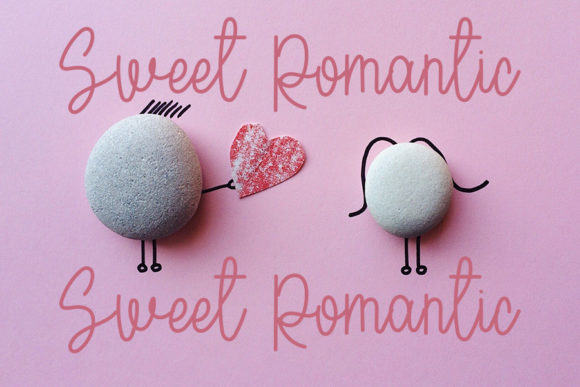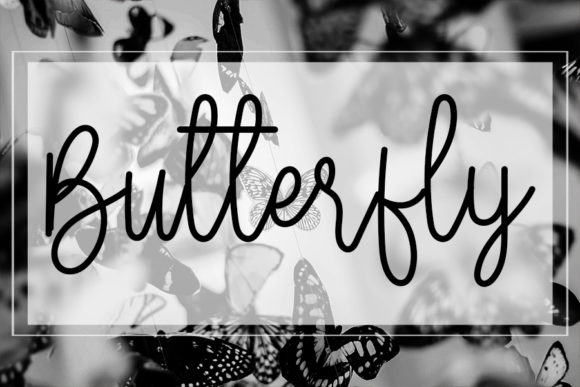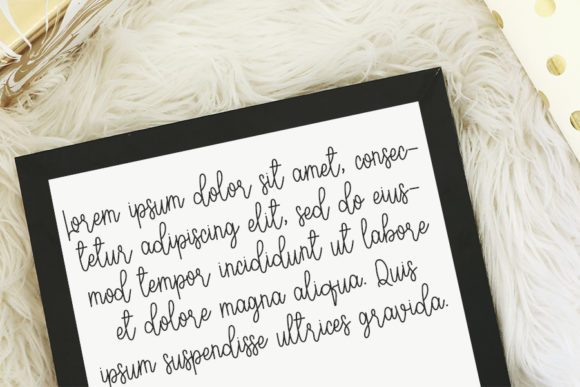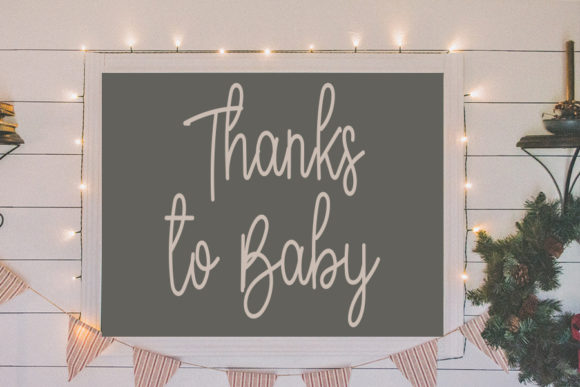
Beautiful Valentine Font: The Perfect Addition to Your Craft Designs
Are you a designer or crafter looking for a beautiful and versatile font to add a touch of elegance to your creations? Look no further than the Beautiful Valentine font! This stunning handwritten font is clean, friendly, and easy to use, making it the perfect addition to your craft designs.
What is Beautiful Valentine Font?
Beautiful Valentine is a modern handwritten font that exudes warmth and friendliness. Its clean lines and simple design make it highly legible and versatile, allowing you to use it in a wide range of craft designs, from greeting cards and invitations to scrapbooking and DIY projects.
Key Features of Beautiful Valentine Font
- Clean and Friendly Design: The Beautiful Valentine font features a clean and friendly design that is perfect for creating beautiful and elegant craft designs.
- Easy to Use: This font is incredibly easy to use, making it perfect for designers and crafters of all skill levels.
- Highly Legible: The font’s simple design and clean lines make it highly legible, even at small sizes.
- Versatile: Beautiful Valentine font can be used in a wide range of craft designs, from paper crafting and scrapbooking to digital designs and social media graphics.
How to Use Beautiful Valentine Font in Your Craft Designs
Beautiful Valentine font is incredibly easy to use and can be incorporated into your craft designs in a variety of ways. Here are a few ideas to get you started:
- Greeting Cards and Invitations: Use Beautiful Valentine font to create beautiful and elegant greeting cards and invitations for special occasions like Valentine’s Day, birthdays, and weddings.
- Scrapbooking: Add a touch of elegance to your scrapbook pages with Beautiful Valentine font. Use it to title your pages, add journaling, or create beautiful captions for your photos.
- DIY Projects: Beautiful Valentine font can also be used in a variety of DIY projects, such as crafting, woodworking, and home decor.
- Digital Designs: This font can also be used in digital designs, such as social media graphics, blog posts, and digital invitations.
Tips for Pairing Beautiful Valentine Font with Other Fonts
Beautiful Valentine font can be paired with a variety of other fonts to create stunning and unique craft designs. Here are a few tips for pairing this font with other fonts:
- Pair with Script Fonts: Beautiful Valentine font pairs beautifully with script fonts, such as Pacifico or Great Vibes. This combination creates a romantic and elegant look that’s perfect for Valentine’s Day or wedding designs.
- Pair with Serif Fonts: Pairing Beautiful Valentine font with serif fonts, such as Georgia or Times New Roman, creates a beautiful contrast between the clean lines of the handwritten font and the traditional serif font.
- Pair with Sans-Serif Fonts: Beautiful Valentine font also pairs well with sans-serif fonts, such as Arial or Helvetica. This combination creates a modern and clean look that’s perfect for digital designs and modern craft projects.
Beautiful Valentine font is a stunning handwritten font that is perfect for designers and crafters looking to add a touch of elegance to their creations. Its clean and friendly design, ease of use, and versatility make it a great addition to any craft design. Whether you’re creating greeting cards, scrapbook pages, or digital designs, Beautiful Valentine font is sure to impress.